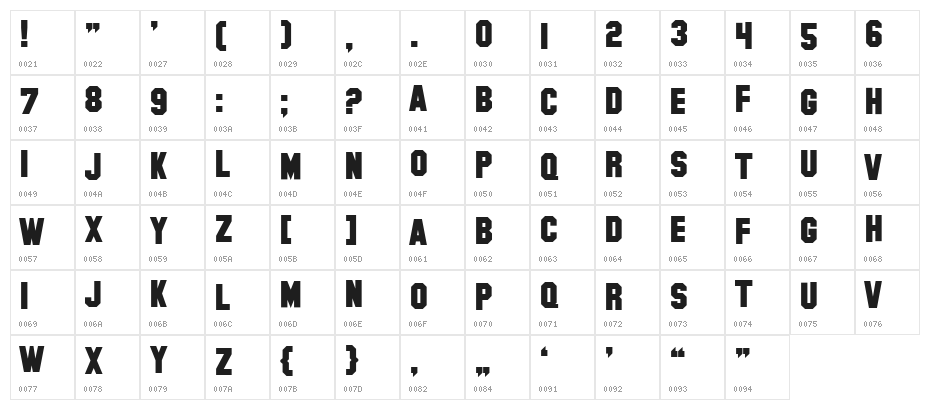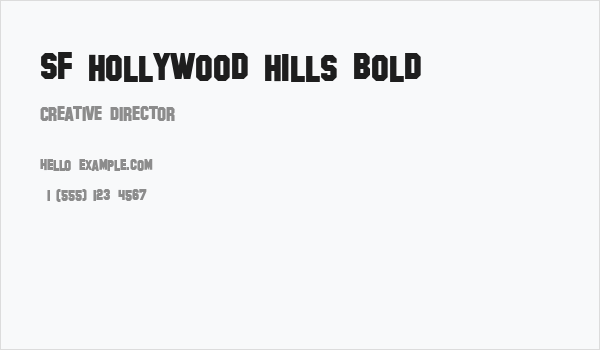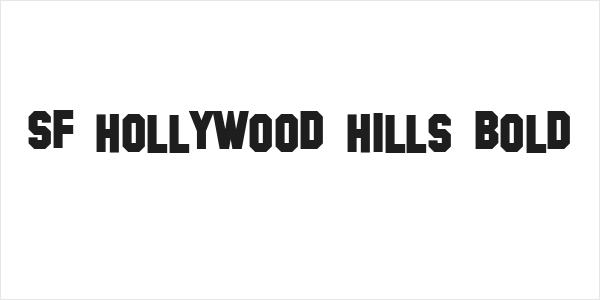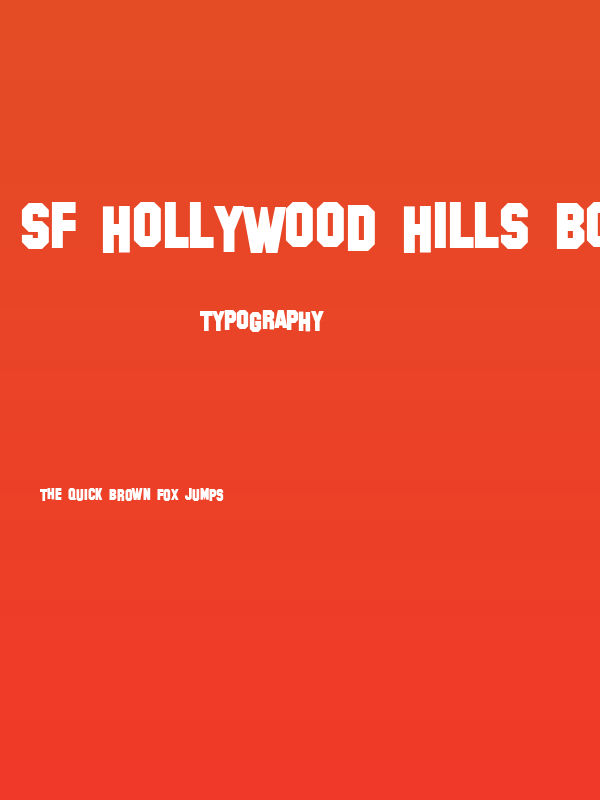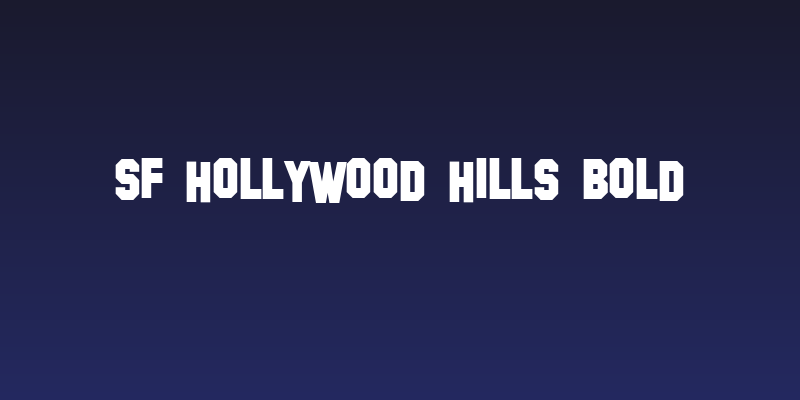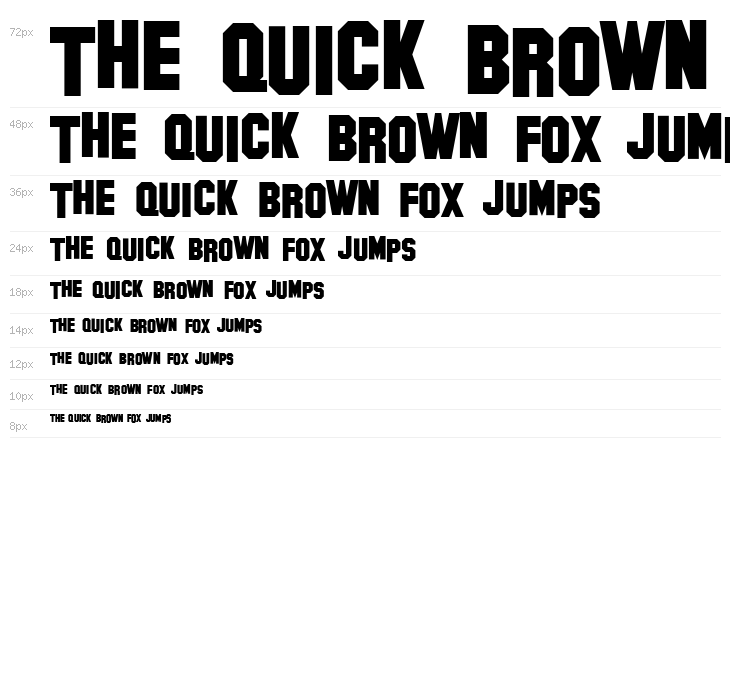
SF Hollywood Hills Bold Font
SF Hollywood Hills Bold Description
This bold, geometric font features strong, angular lines and a commanding presence. The uppercase letters are characterized by their blocky, solid forms, giving a sense of strength and stability. The numbers and special characters maintain this robust style, ensuring consistency across all glyphs. The font's design is reminiscent of classic Hollywood signage, with a modern twist that makes it suitable for contemporary use. Its boldness ensures high visibility, making it ideal for attention-grabbing headlines and impactful designs.
| Use Case | Headlines, Logos, Signage |
| Proposed Projects | Ideal for movie posters, signage, branding, and any project requiring a bold, impactful typeface. |